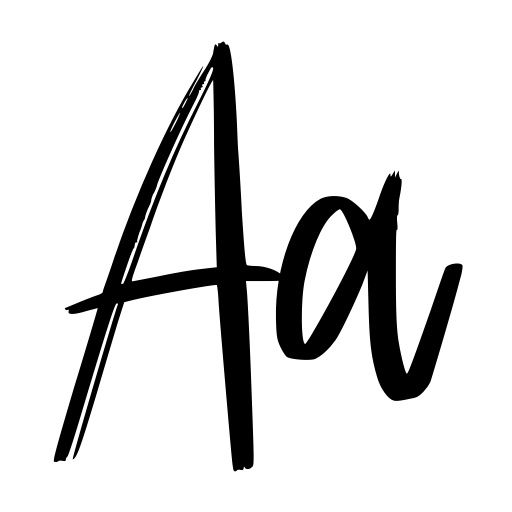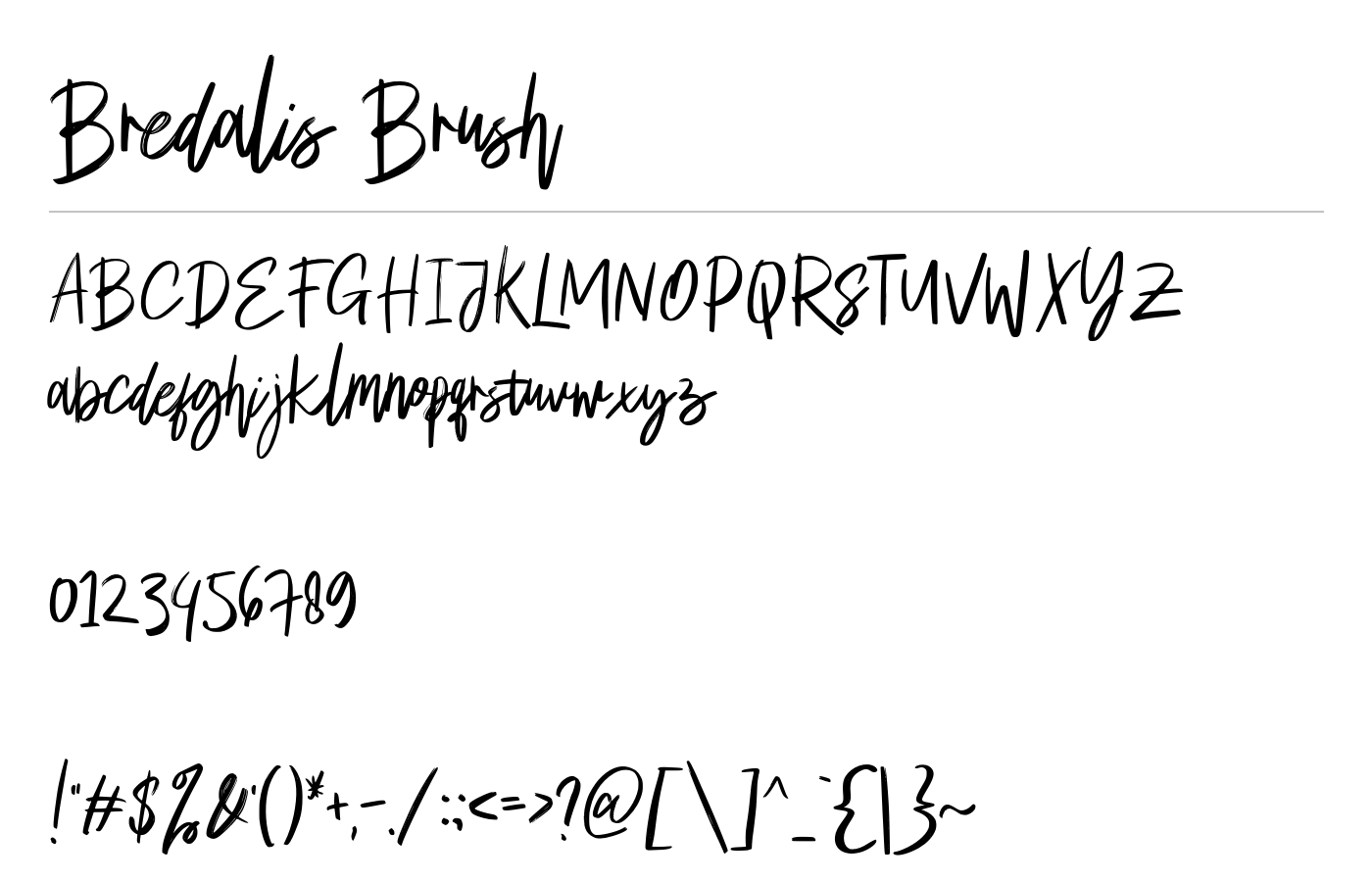
Bredalis Brush is a lively brush script font featuring a casual, handwritten style with varied stroke widths and natural, flowing letterforms. Its energetic, slightly irregular characters create a friendly and approachable personality, making it great for creative projects, branding, and invitations that want a personal touch. This font works well where a dynamic, informal look is desired, such as logos, social media graphics, and eye-catching headlines.
Bredalis Brush Font
About Bredalis Brush Font
| Font family | Bredalis Brush Font |